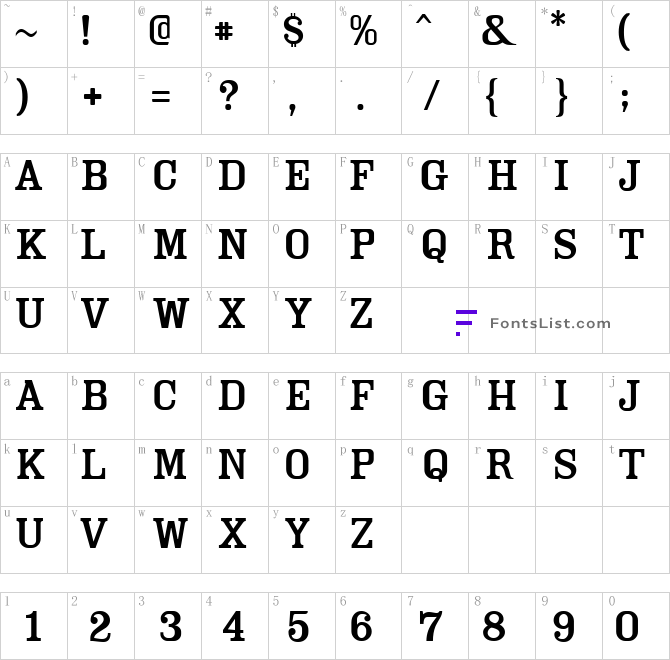
Cam-Light.ttf is a very beautiful artistic font, Cam-Light.ttf is widely used in the design and printing of various books and pictures,Cam-Light.ttf has a strong visual impact,Cam-Light.ttf is a commonly used font in newspapers, magazines and books, and is used in posters, e-commerce Poster design, store design, logo design, font design and other fields.Cam-Light.